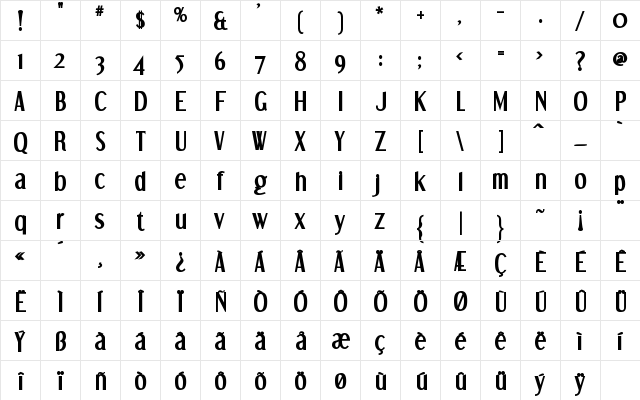
Dream Orphans Bold
Design Context for Dream Orphans Typeface
Dream Orphans offers clean, dependable letterforms without strong stylistic allegiance, making it a practical choice for designers who need flexibility. Its bold stroke weight gives it real presence on the page.
Pro Tip: Use Dream Orphans in both headline and body roles to test its range before committing to a single application.